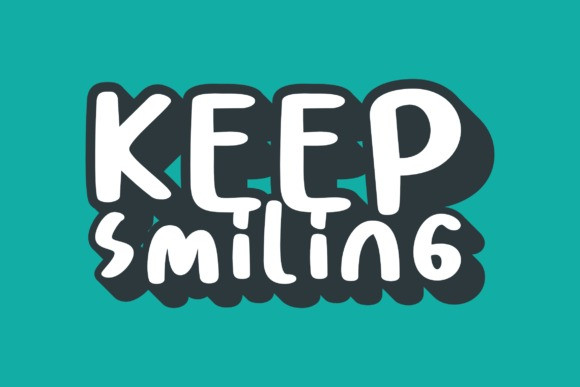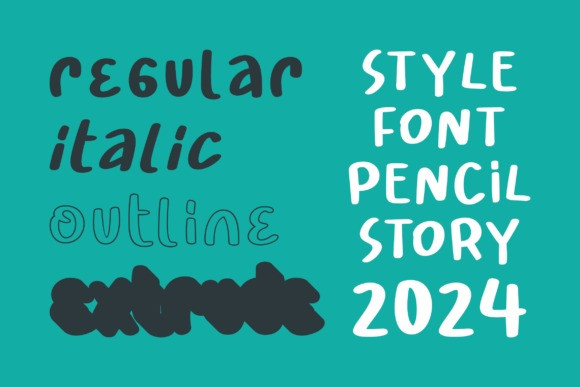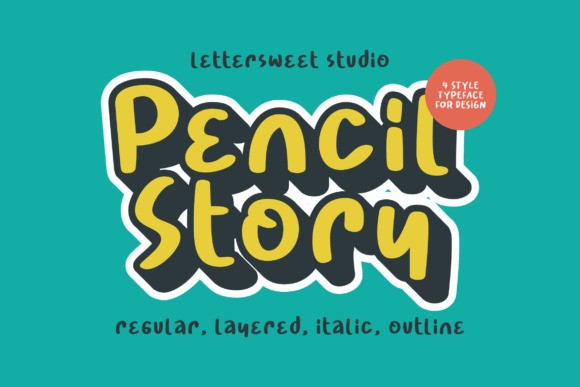
Pencil Story Font
Pencil Story Font, an adorable display font set to infuse your designs with a touch of whimsy and a dash of fun. Seamlessly blending style and versatility, this enchanting typeface effortlessly enhances your creative endeavors, whether it’s adding a humorous touch to quotes, imbuing greeting cards with heartfelt sincerity, transforming invitations into keepsakes, making posters more impactful, captivating your audience with professional business cards or enlivening your presentations. Penccil Story is more than just a font, it’s your creative partner, elevating your designs to captivating new heights.